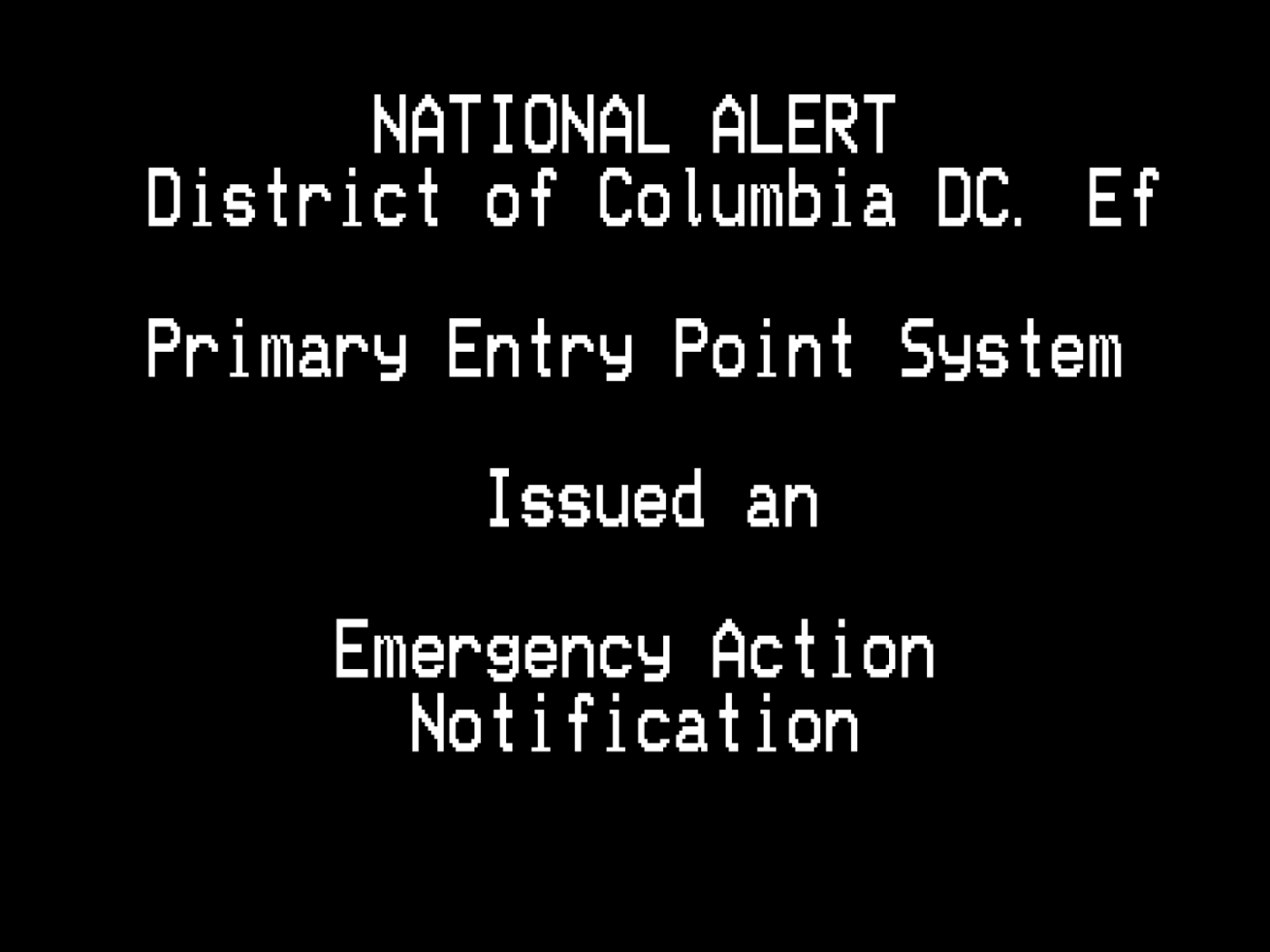
Best for: EAS Scenarios and other VCR-related stuff.
Made to provide accuracy.
Added more symbols at 6:30 PM Oct 23, 2025
Width changed at 2:45 PM Oct 25, 2025
This is what the font would look like on an actual EAS screen.
Can You Adjust The Width Back To Normal Like The Example From Last October
@elliqvl - If you read the information section above, it clearly states that the widths were changed twice: once in October 2025 and again in December 2025.
@Can'tfind1usernamecanI? can you revert it?
VCR EASyIPTVby Can'tfind1usernamecanI?